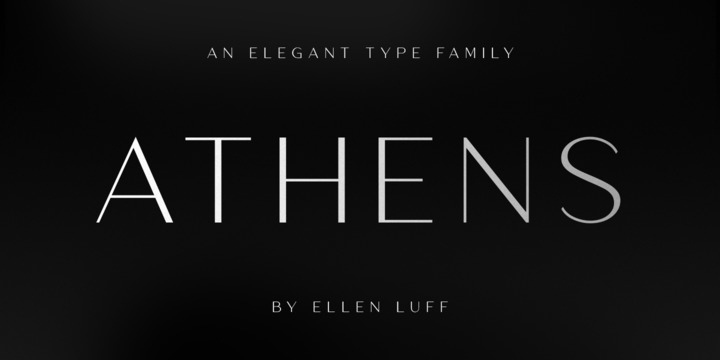
Athens Font
Athens Font is perfect for classical education institutions, philosophy department branding, ancient history museum exhibitions, Greek cultural center signage, classical architecture firm logos, academic conference materials, scholarly publication designs, heritage foundation graphics, classical literature publishing, and democratic institution communications. This distinguished typeface excels in applications where classical wisdom, democratic ideals, and intellectual heritage are fundamental brand characteristics.
What makes Athens Font exciting is its masterful embodiment of ancient Greek democratic principles through letterforms that capture the balance between individual character and collective harmony that defined Athenian civilization. The font features noble proportions with classical details that evoke carved marble inscriptions and philosophical manuscripts while maintaining contemporary functionality. Its dignified presence immediately communicates intellectual authority and democratic values, making it perfect for institutions that celebrate reason, debate, and the pursuit of knowledge that originated in ancient Athens.
The Athens Font family typically includes Regular and Bold weights, often accompanied by italic variations that enhance its academic versatility and classical appeal. Many versions feature small caps, old-style numerals, and extensive ligatures that reflect traditional Greek and European scholarly typography. Some collections include Greek alphabet characters, classical symbols, and ornamental elements inspired by ancient Athenian architecture that provide comprehensive solutions for classical studies and democratic institution applications.
Whether you're developing brand identities for educational institutions, creating materials for democratic organizations, or designing publications that require classical authority and philosophical gravitas, Athens Font Free Download delivers the intellectual distinction that academic and civic organizations demand. Its authoritative character makes it ideal for institutions dedicated to democratic education and classical learning. The font's ability to convey both ancient wisdom and contemporary democratic relevance makes it particularly valuable for universities, civic institutions, and cultural foundations seeking to maintain their connection to classical democratic traditions while engaging modern citizens who value intellectual discourse, democratic participation, and the timeless principles of reasoned debate that flourished in ancient Athens.